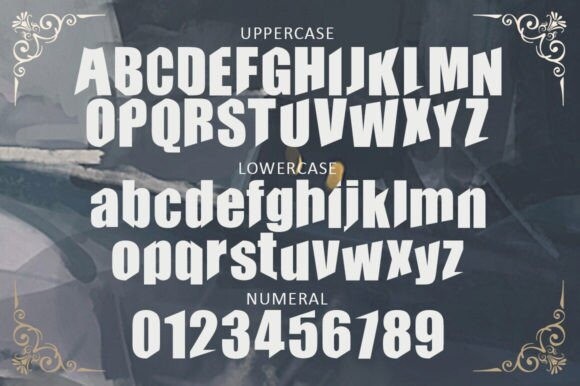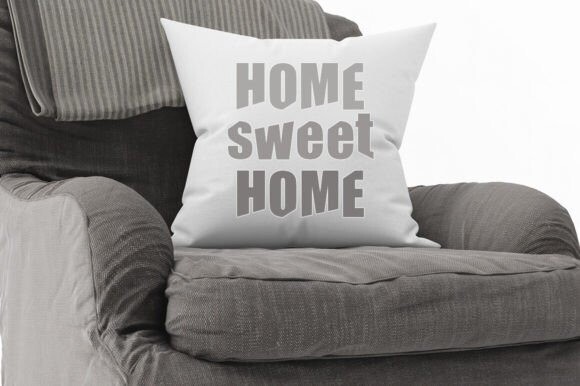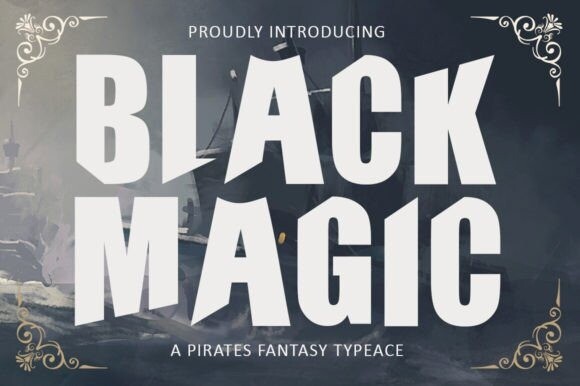
Black Magic Typeface
Designer: AF Type
Black Magic Typeface, is a font that reflects an adventurous atmosphere, adding a touch of charm to your designs. This font would be an ideal choice for movie-themed designs, games, greeting cards, gift labels, holiday-themed projects, and any design you want to develop.